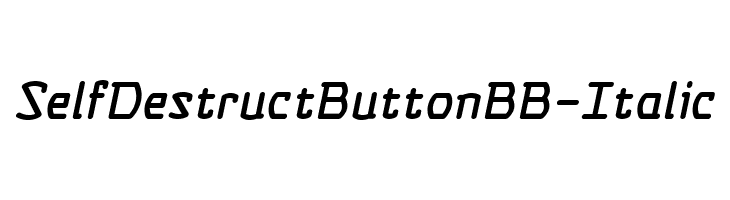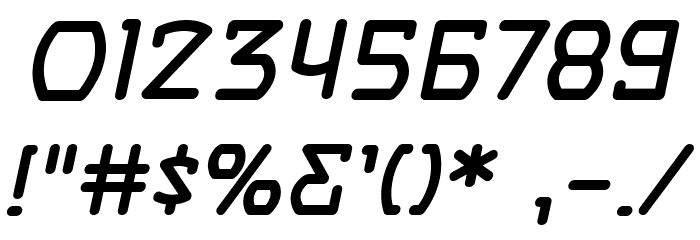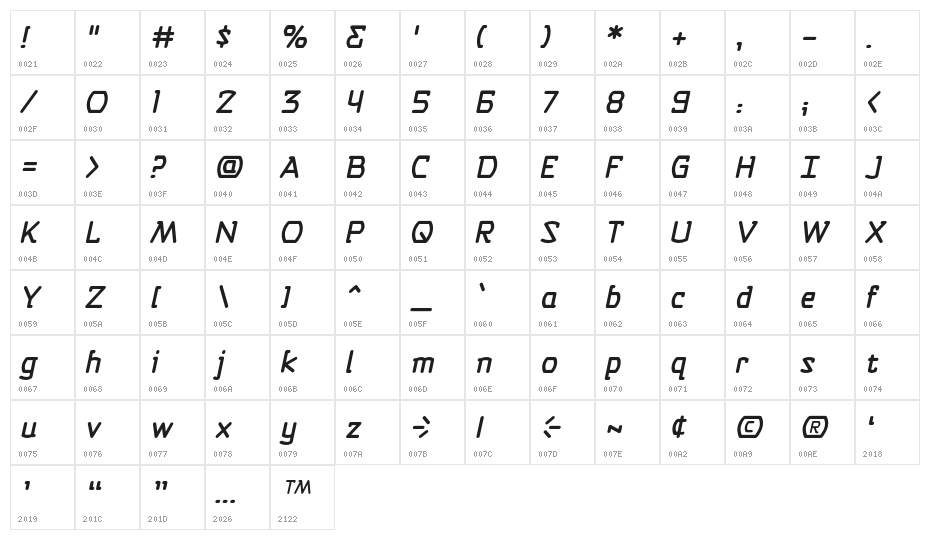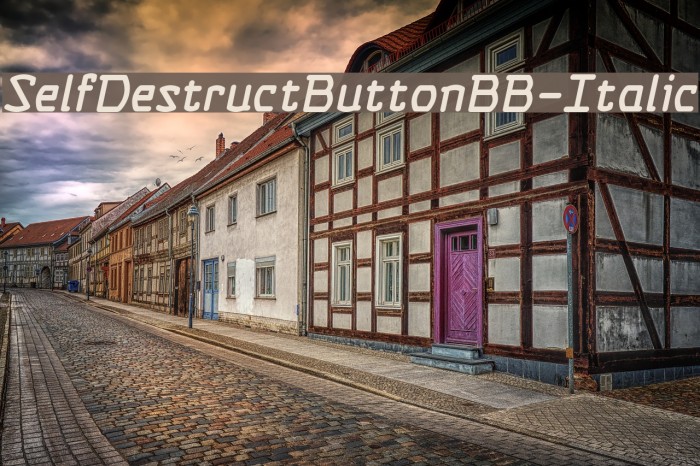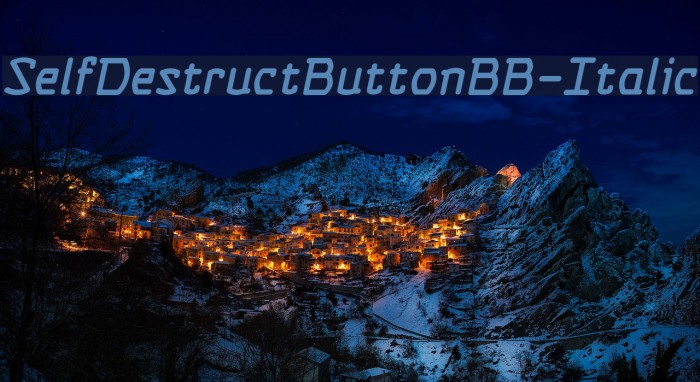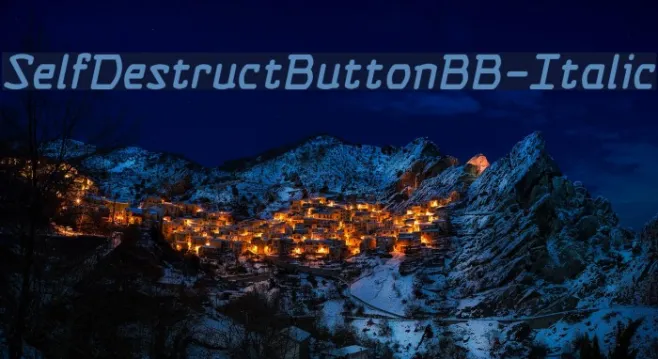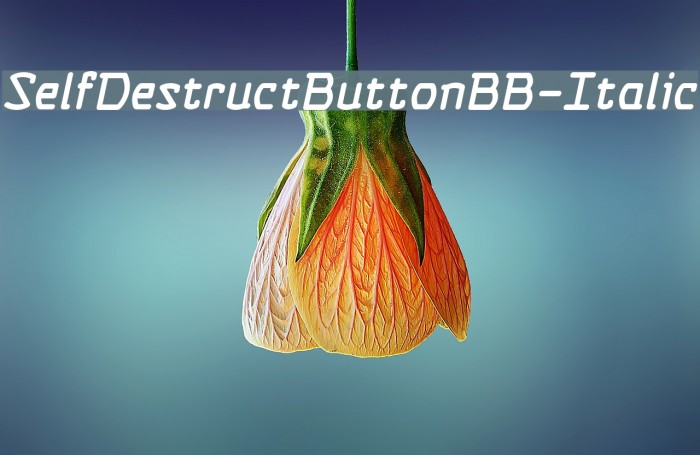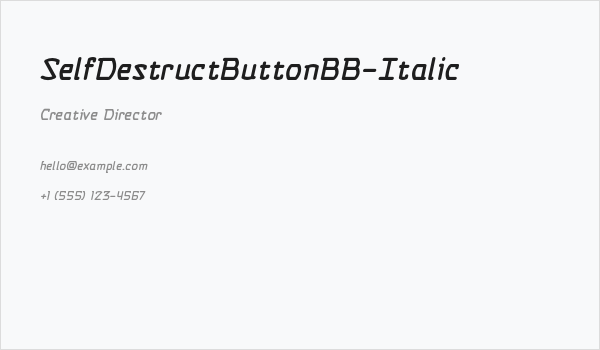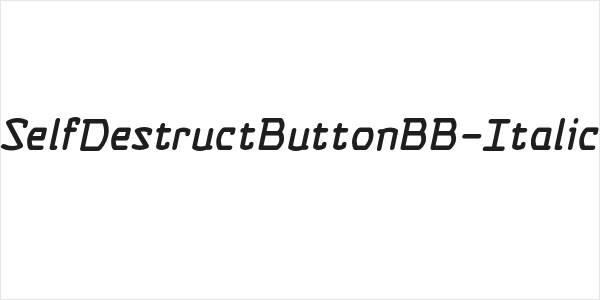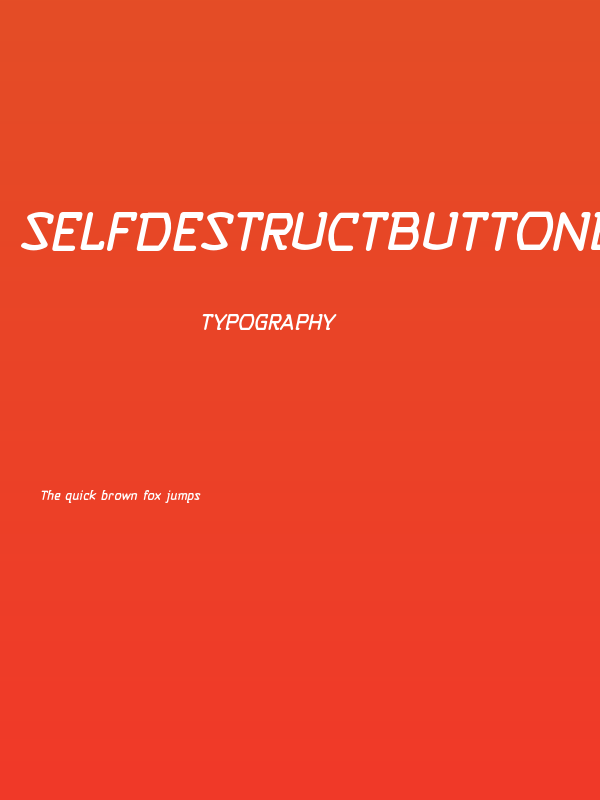
SelfDestructButtonBB-Italic Font
SelfDestructButtonBB-Italic Description
This font features a modern, italicized style with a slightly condensed width. The characters are bold and have a uniform stroke thickness, giving them a strong presence. The design includes rounded edges and a slight slant, contributing to a dynamic and energetic appearance. The spacing between characters is normal, allowing for clear readability. The font includes a full set of uppercase and lowercase letters, numbers, and a variety of special characters, making it versatile for different uses.